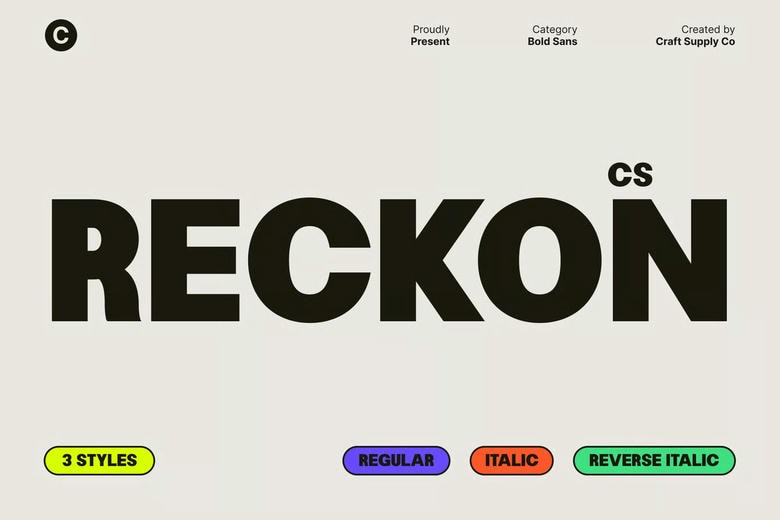
CS Reckon is a Contemporary, Funky Edge Strong, Clean Shapes with Unconventional Flair This is a high confidence, bold sans serif typeface meant to be noticed. It has powerful, non-messy forms that create a feeling of stability and clarity, and the slightest hints of funky detailing bring a refreshing touch. This combination of form and playfulness provides the font with a unique voice that would suit those designers who want to have a contemporary typeface with vibrant character.
Daring Character to Striking Headlines This font is designed to draw in and in display use it does its job well. It has bold strokes and bold forms that can generate immediate visual attention, and it is one of the best options when it comes to headlines and banners, posters, and editorial illustrations. All letters are designed so that they are spotted, so your message will look forceful, strong and to the point.
Best with Posters, Branding, and Creative Campaigns No matter what you need to work on brand identities, promotional posters, product packaging or digital marketing assets, this font can provide your designs with a powerful visual appeal. Its nontraditional styling it is ideal in projects that seek to feel up to date, expressive, and somewhat risky in assisting brands to be memorable in competitive realms.
Funky, Expressive Flair to its Modern Style This font is a blend of contemporary design principles and an energetic, non-conformist approach. This combination enables it to easily conform to different creative themes without losing the charm it has. Since its inception in youthful branding till modern editorial layouts, the font applies a spurt of vitality, character and bold modernism to any application.
CS Reckon Sans Serif Font